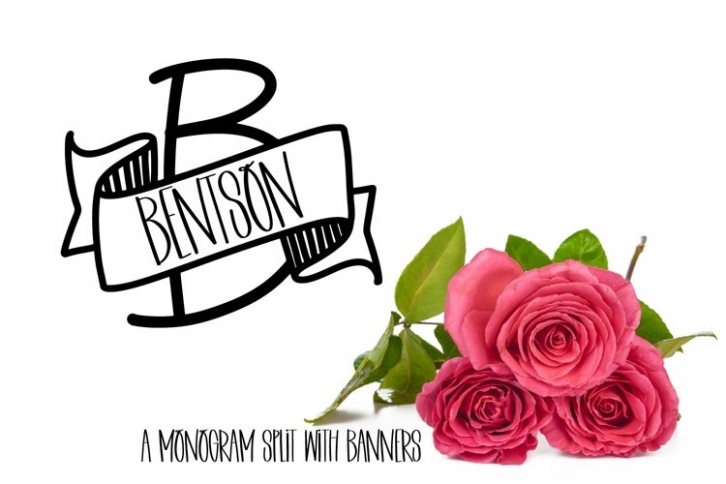
Split Banner Monogram is a beautiful font that was designed by plusstore. It's a great choice for designers and creatives who need such a font. It was released on December 31, 2021 and the file size is 13.96 MB. Split Banner Monogram may give a more youthful, expressive and casual look to your project. It is a very beautiful, refined, elegant, and high-quality font.